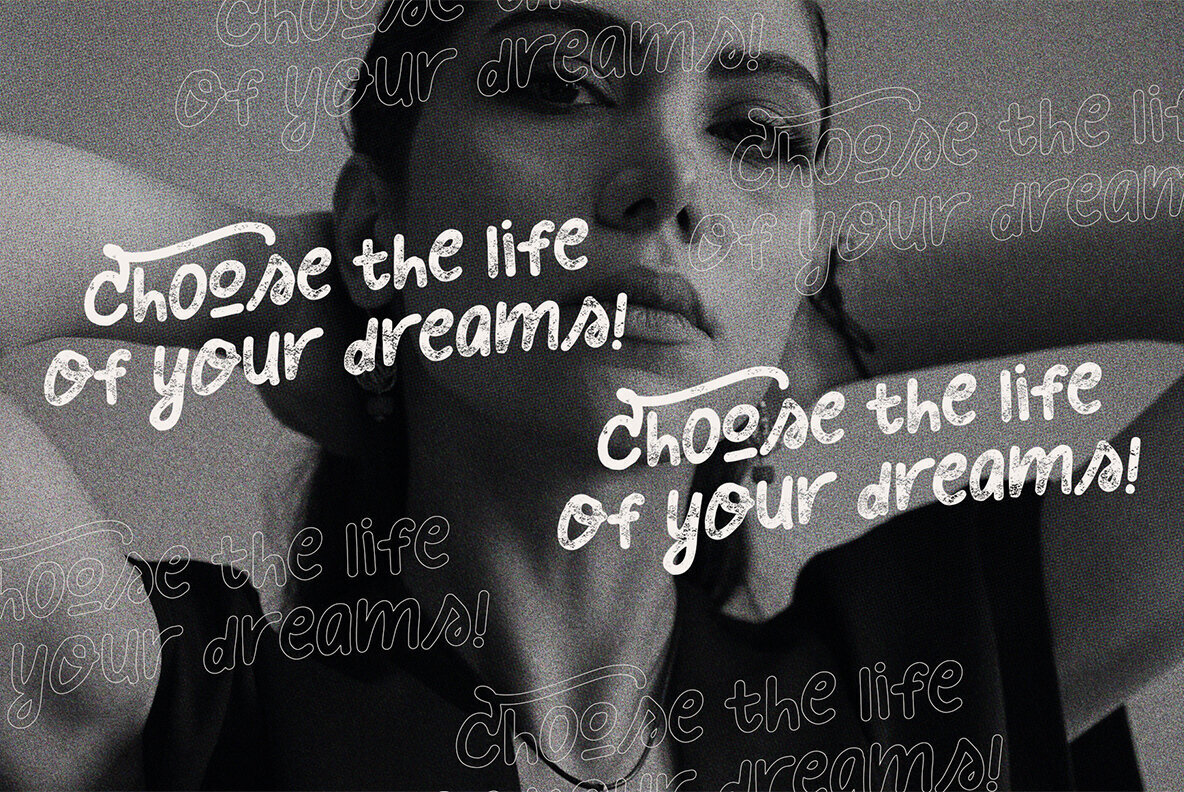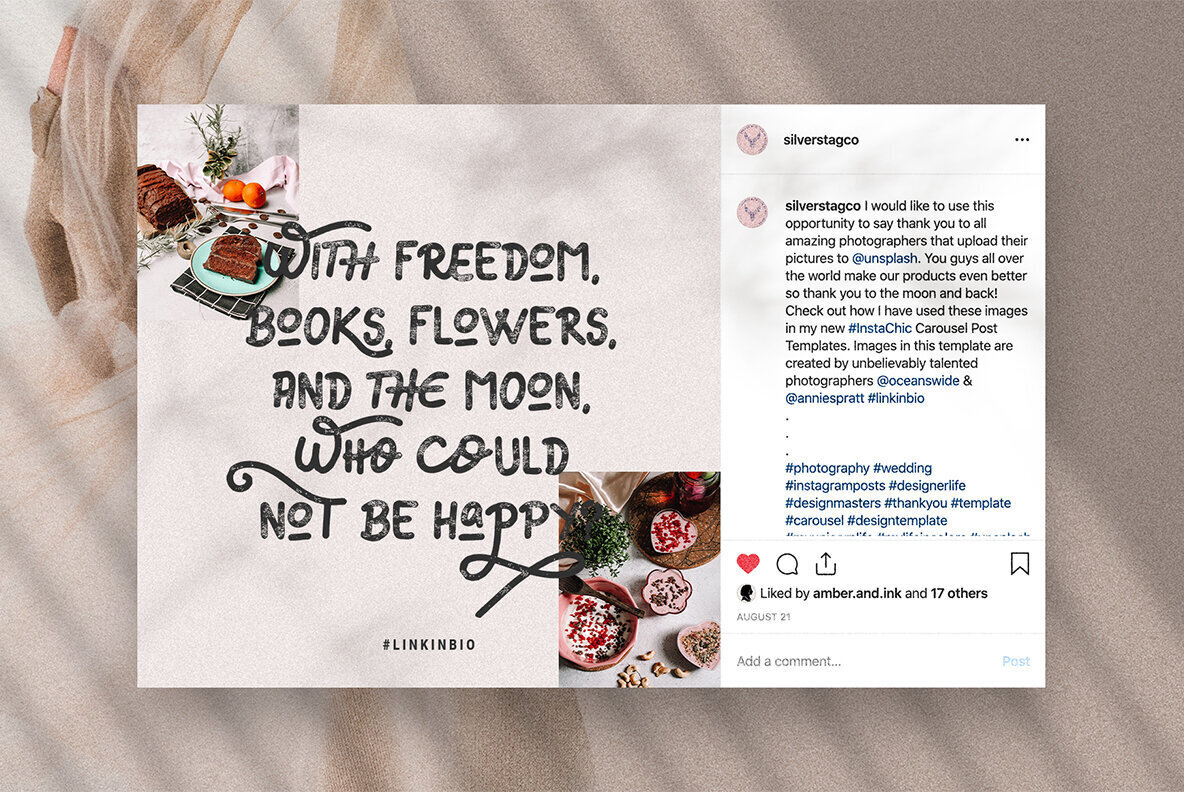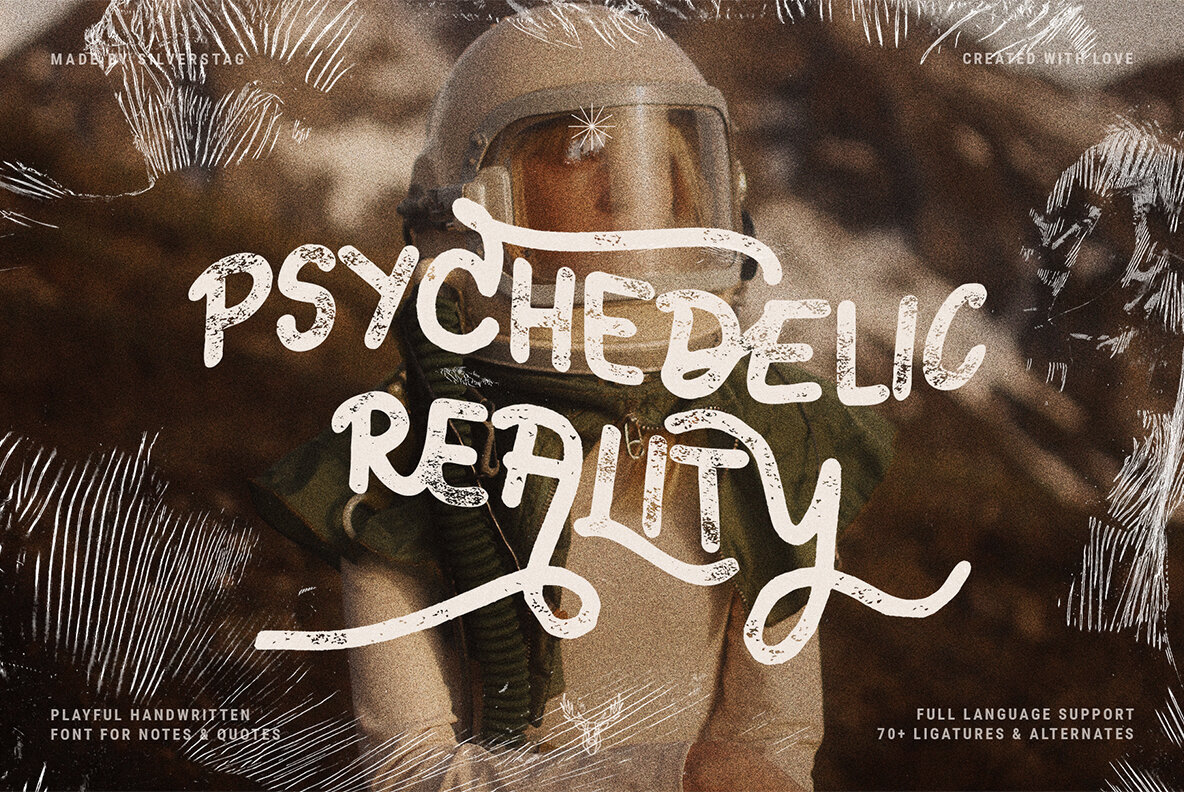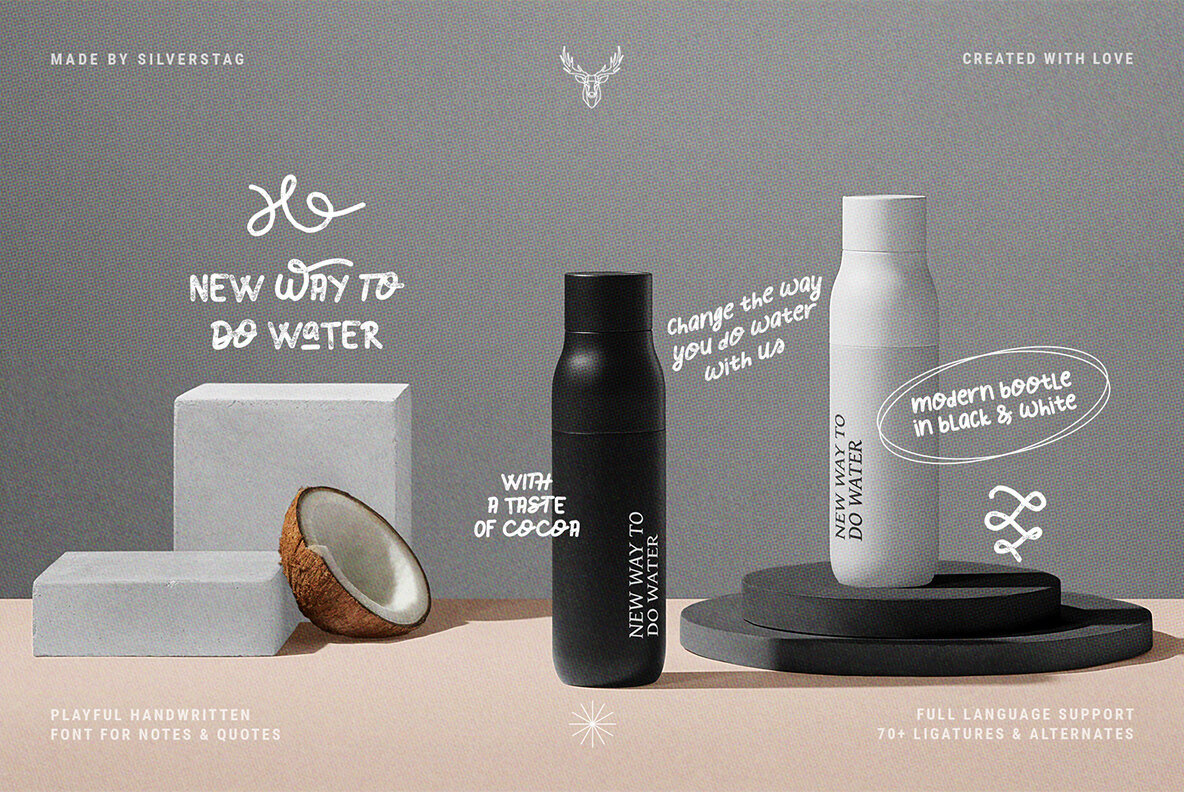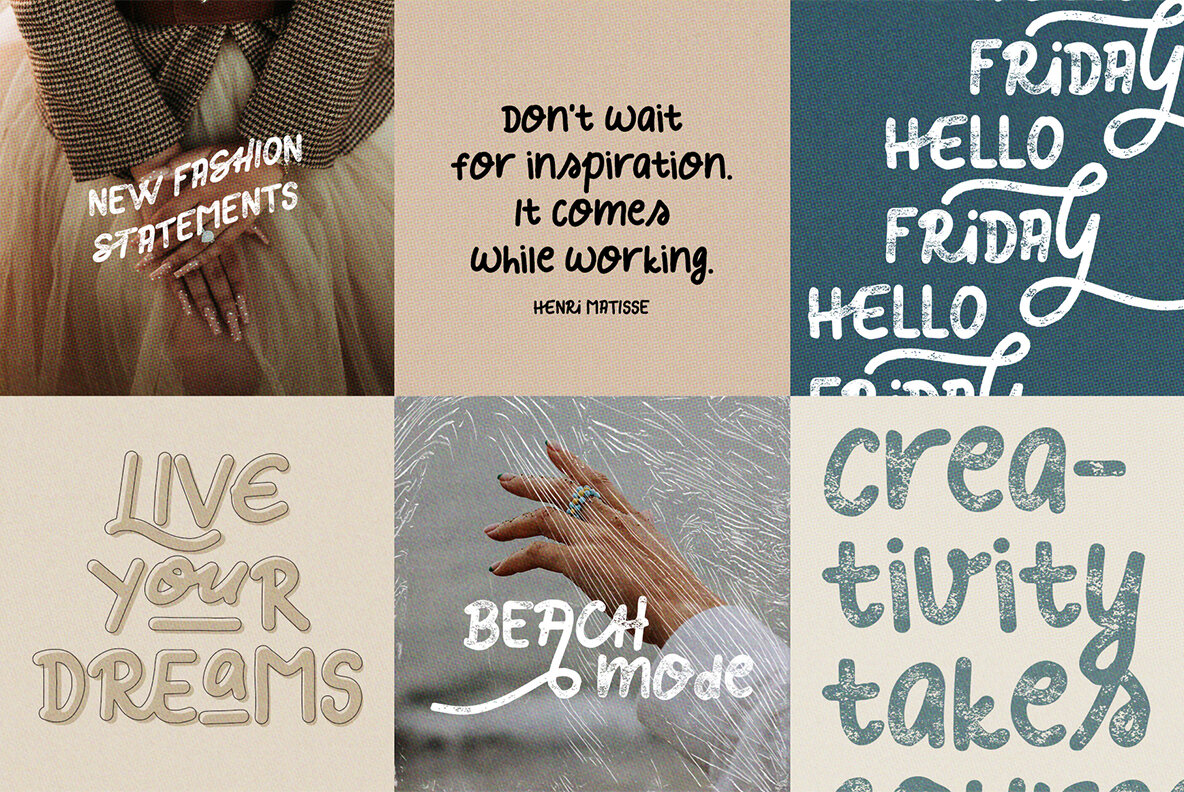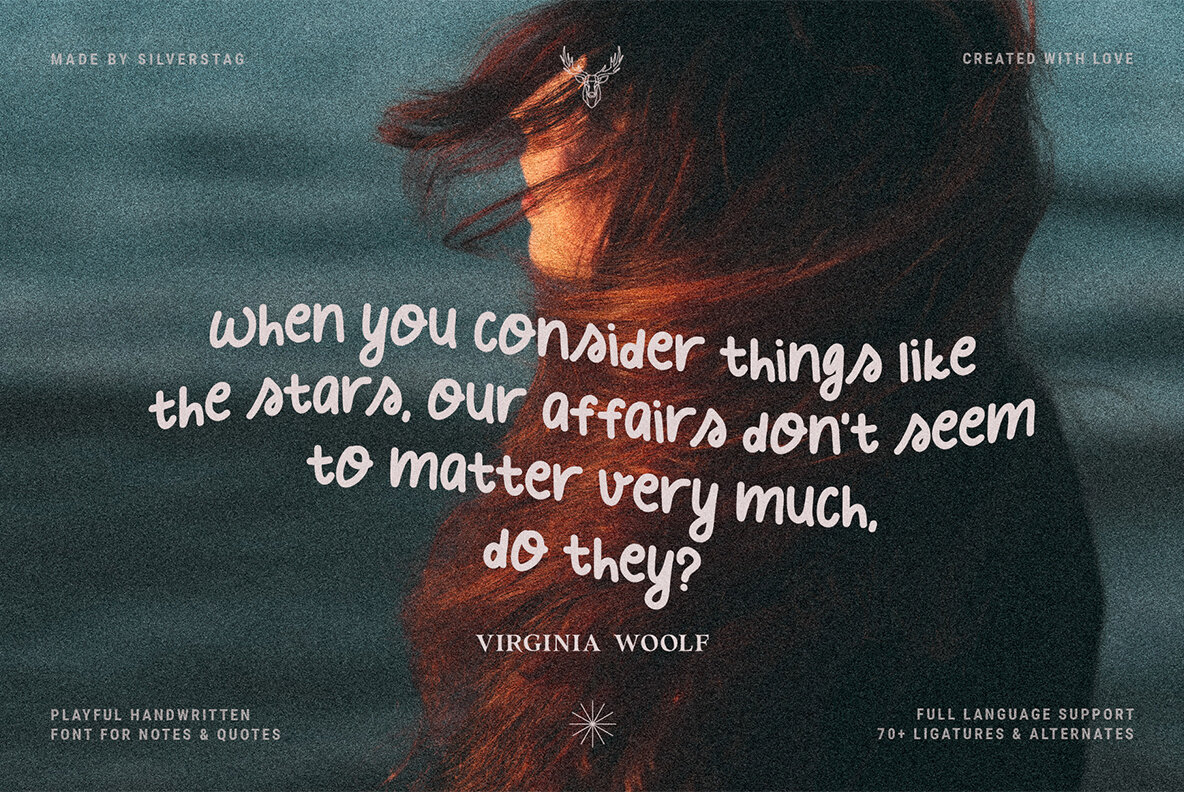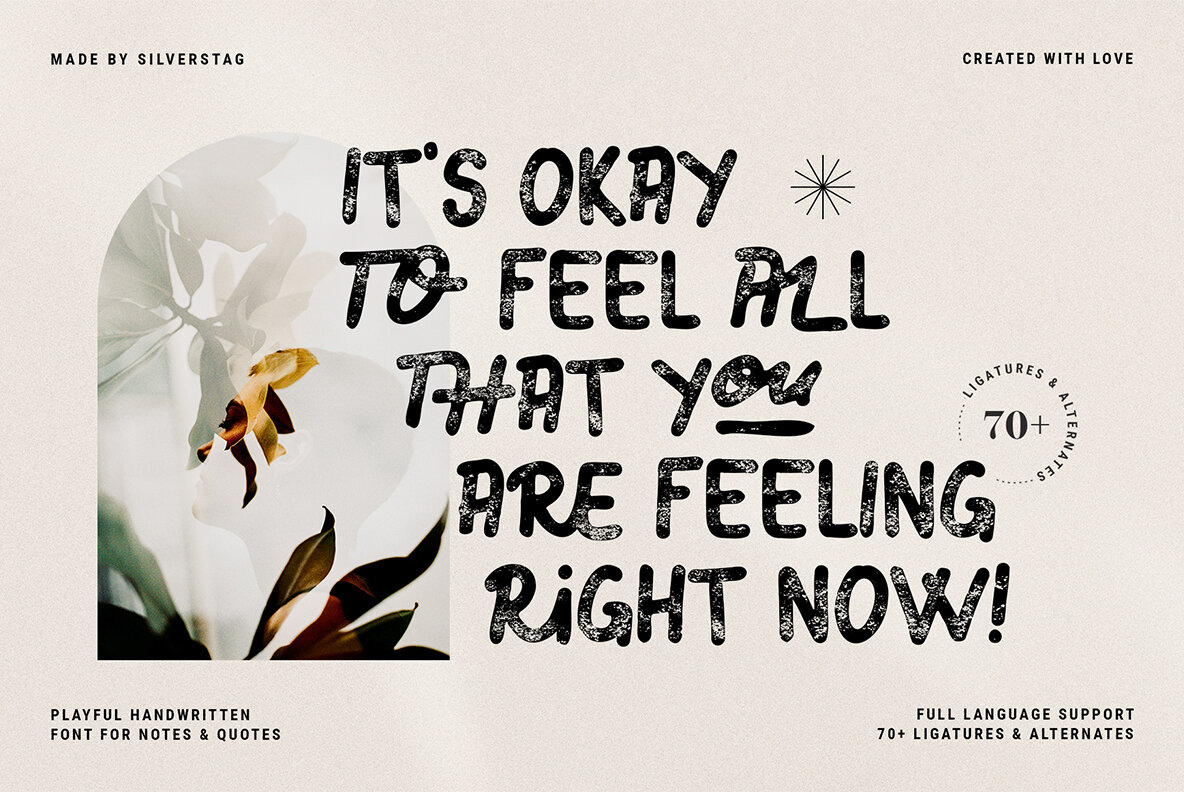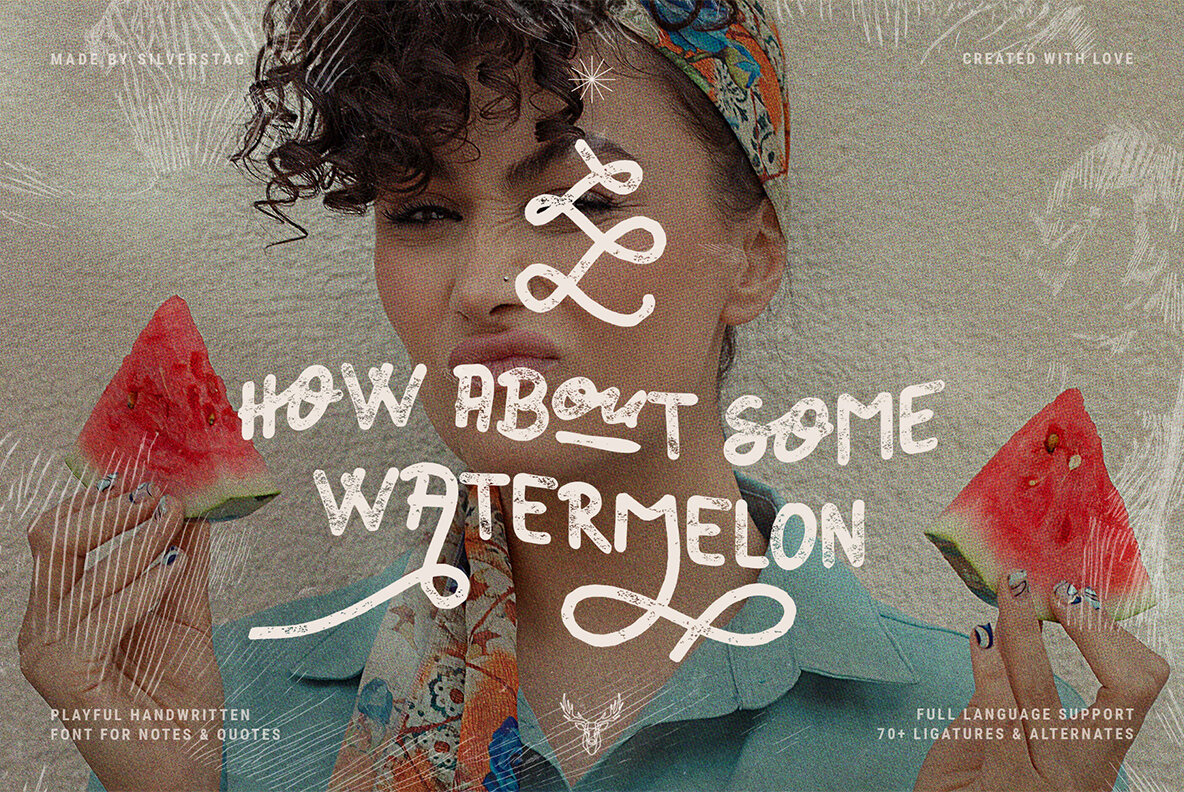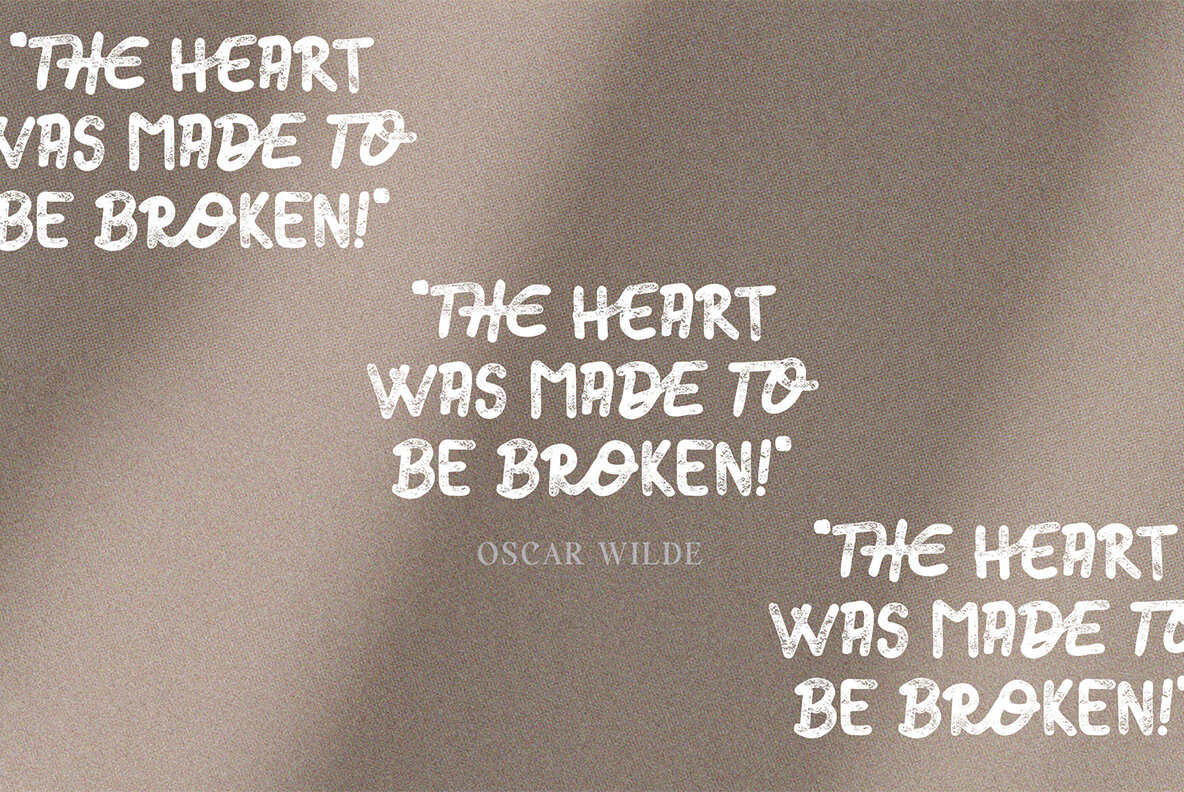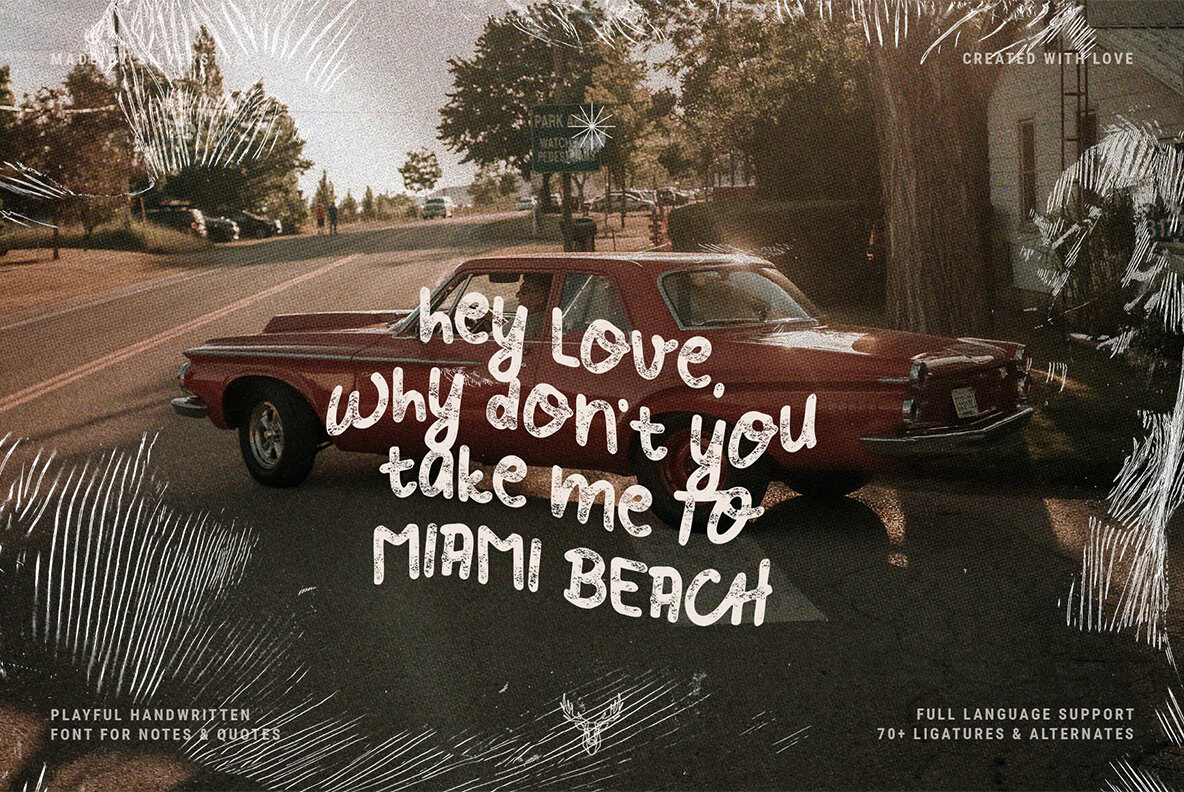
The Grumpy Lime Font
Inspired by the new color of the season, The Grumpy Lime is my take on a super playful, 100% handwritten font! It has over 75 ligatures and alternate letters so you can play with it and get the look you need. And whether you have a client that needs a new quote design, or a social media post, it’s perfect for you. Check out the photos I have prepared for you to see what you can do with it and happy creating!
This font pack also includes full language support, punctuation, numerals and detailed instructions how to use alternate letters most of the apps on your computer, as well as in Canva. And it also comes in three versions: vintage, solid & outline!
I invite you to check out the preview images, and I hope you will be immersed in my vision for this creative typeface that, I am sure, will work for all kinds of interesting projects you might be working on this year.
Grumpy Lime - Playful Ligature Font:
- Over 75 Ligatures & Alternates